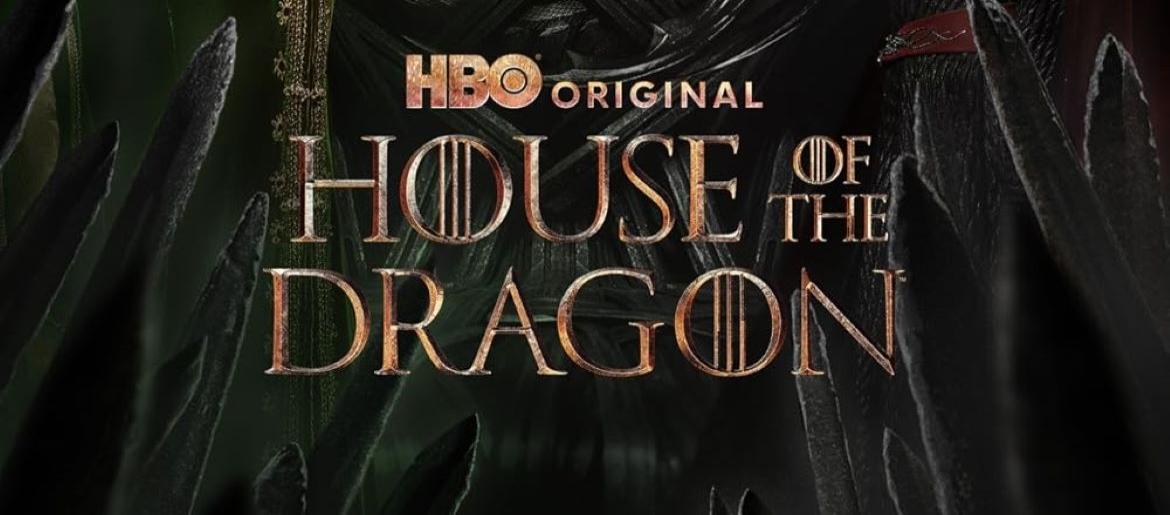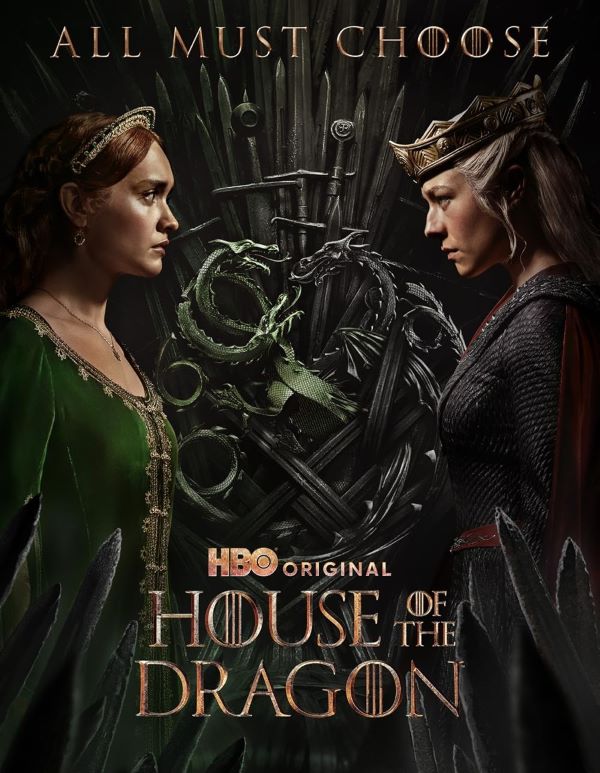
House of the Dragon Font
What Font is House of the Dragon?
The House of the Dragon font is a replica typeface (designed by Charlie Samways) inspired by the original title design used in the HBO series. It features elegant medieval-style lettering with sharp serifs and intricate detailing, perfectly reflecting the show’s regal and fiery Targaryen aesthetic. The replica font closely captures the dark fantasy essence of the series, and you can download it below for your own creative use.
About House of the Dragon
House of the Dragon is an American fantasy drama television series created by Ryan Condal and George R. R. Martin. Premiering on HBO in 2022, it serves as a prequel to Game of Thrones and is based on Martin’s book Fire & Blood. The story is set nearly 200 years before the events of Game of Thrones and chronicles the rise and fall of House Targaryen, including the bloody civil war known as the Dance of the Dragons. Starring Emma D’Arcy, Matt Smith, and Olivia Cooke, the series is praised for its powerful performances, political intrigue, and visually stunning world-building that continues the legacy of Westeros.